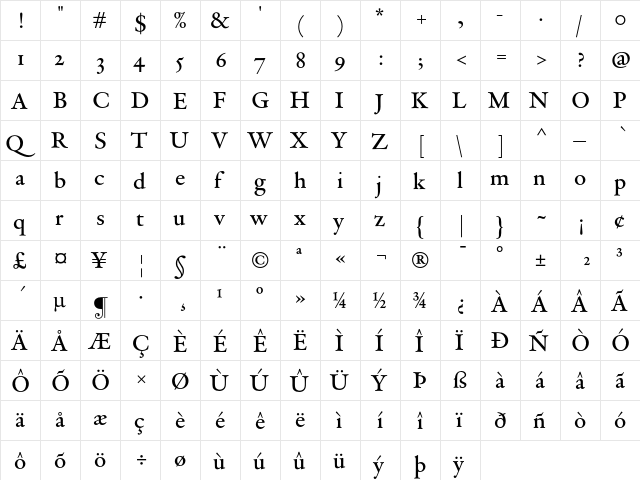
DTLVandenKeereSDMedium Regular Font Preview
DTLVandenKeereSDMedium Regular
Design Context for DTLVandenKeereSDMedium Typeface
DTLVandenKeereSDMedium is a composed and adaptable typeface that performs quietly and consistently across a wide range of design contexts.